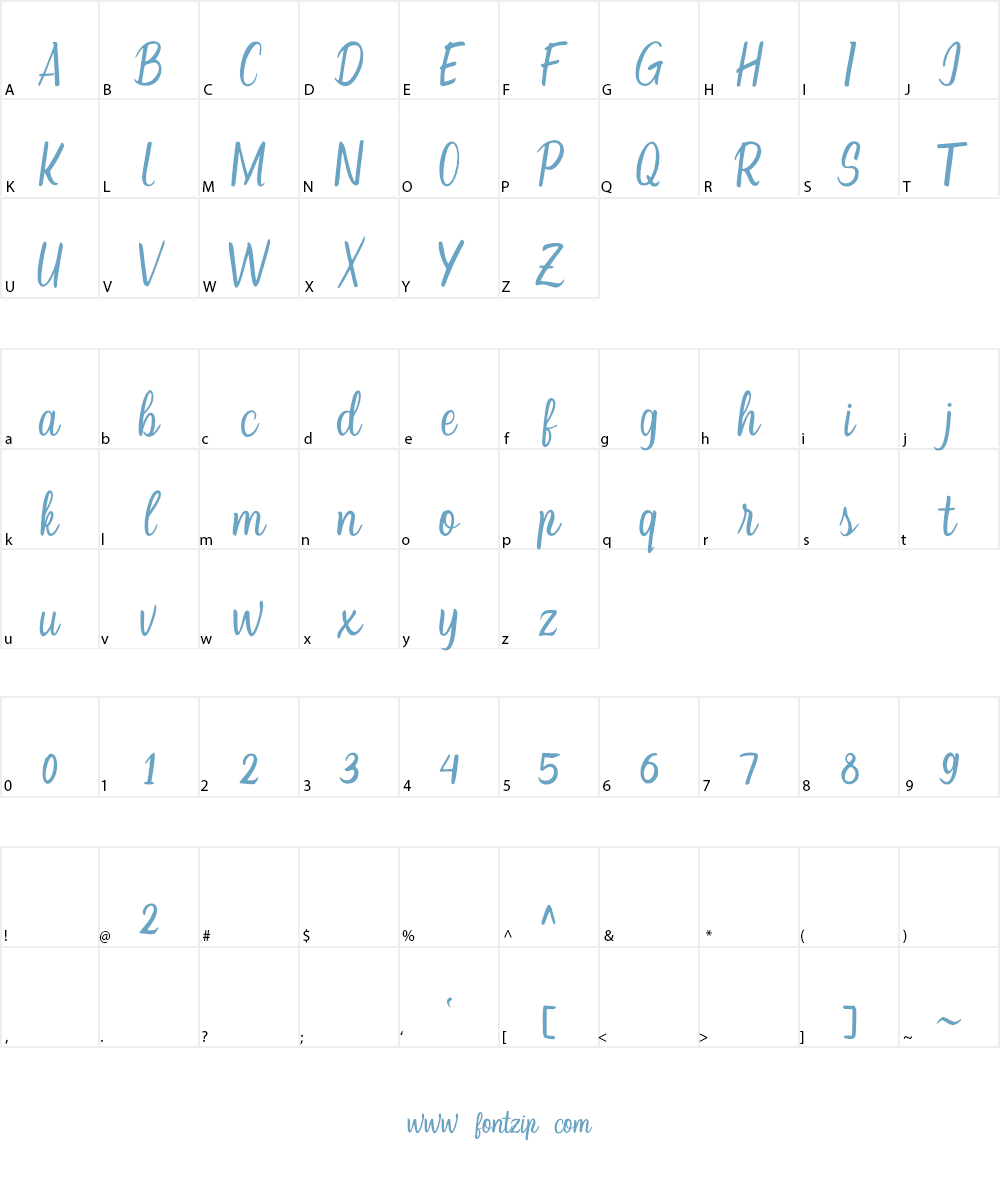
Hello guys... We proud presenting our new font. It's name Christmas. Christmas a new natural script with a handwritten and script style make this font looks elegant, natural, stylish .
Christmas would perfect for invitation, logos & branding , photography, advertisements, watermark, social media posts, product packaging, product designs, label, wedding designs, stationery, special events or anything that need handwriting taste.
And you can use Christmas font for quotes winter greeting cards ( Halloween, Christmas or New Year holidays) and etc.